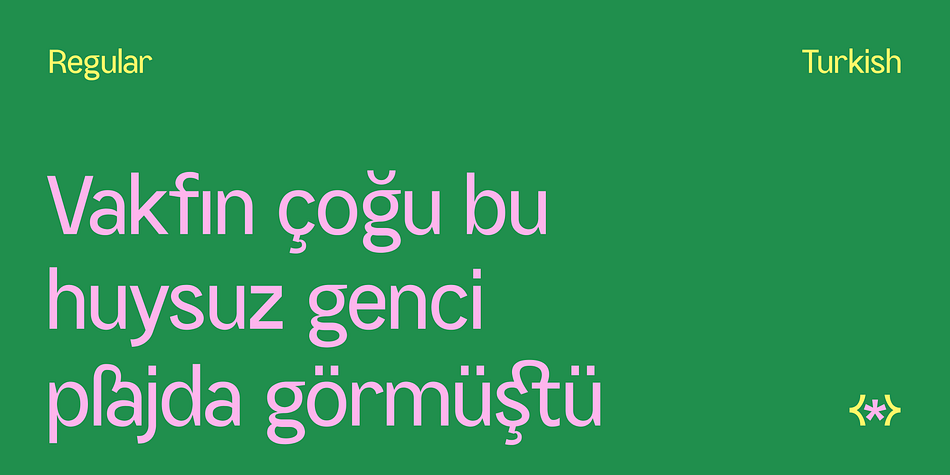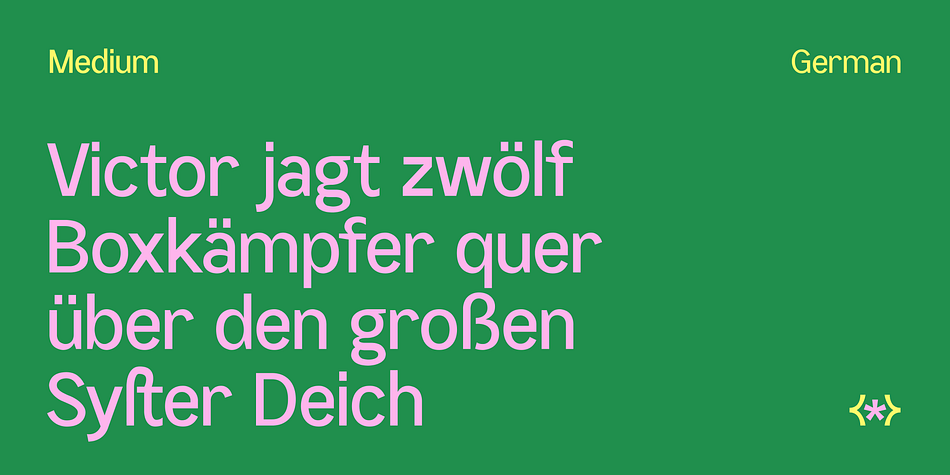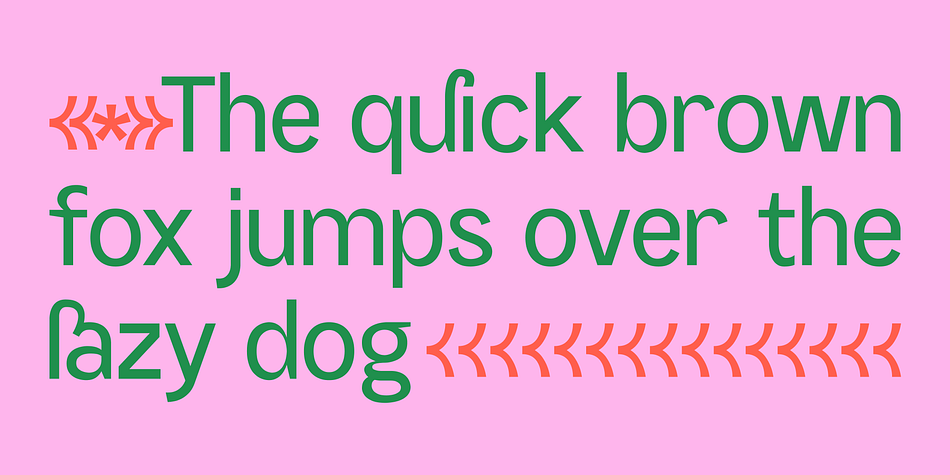
SK Greenland
Designed by Salih Kizilkaya, SK Greenland is a sans serif font family. This typeface has fourteen styles and was published by Salih Kizilkaya.
SK Greenland is a humanist sans serif font family with geometric and organic forms. Synthesizing Greenland’s thousands of years of organic history and modern period, this font combines the organic nature of Greenland with the geometric structure of its urban areas.
This font family, which contains 14 fonts and 9856 glyphs in total, contains all the typographic elements you will need in your designs. You can use this font family, which includes many unique ligatures, without any problems, from headlines to long text. Greenland offers full support for the Latin alphabet while also supporting many other alphabets.